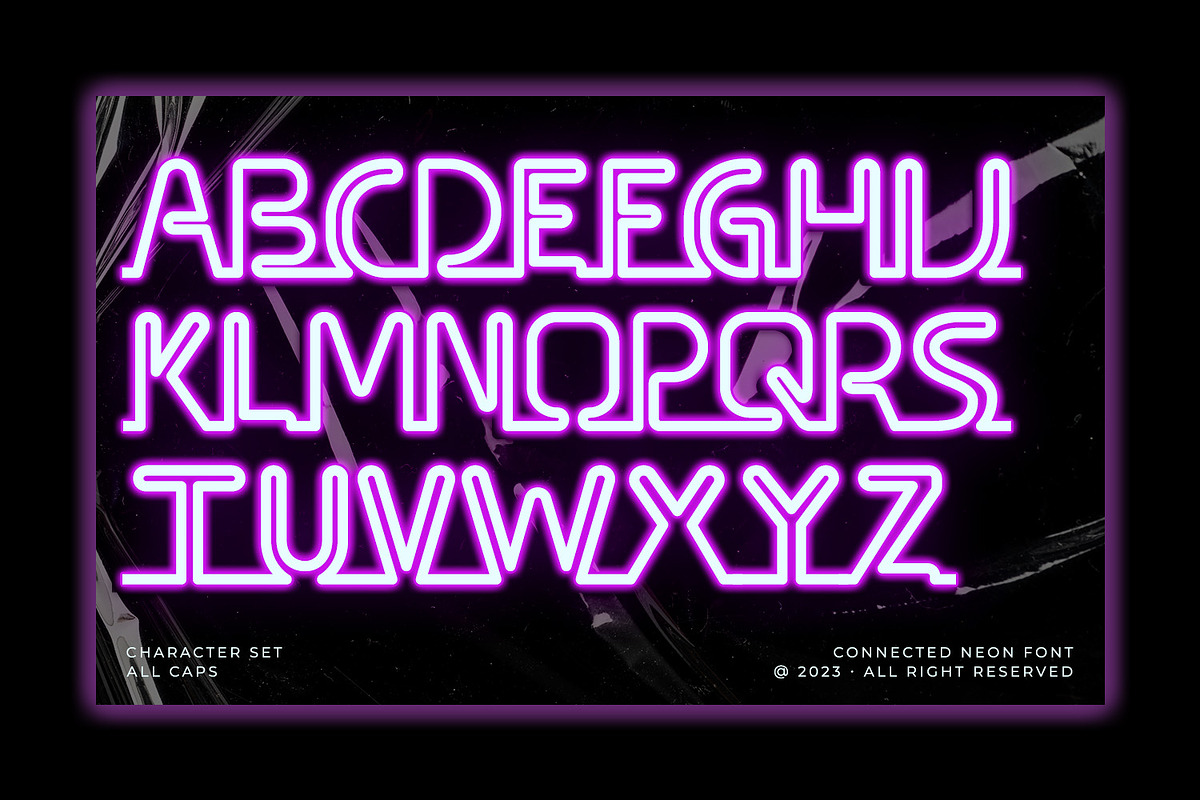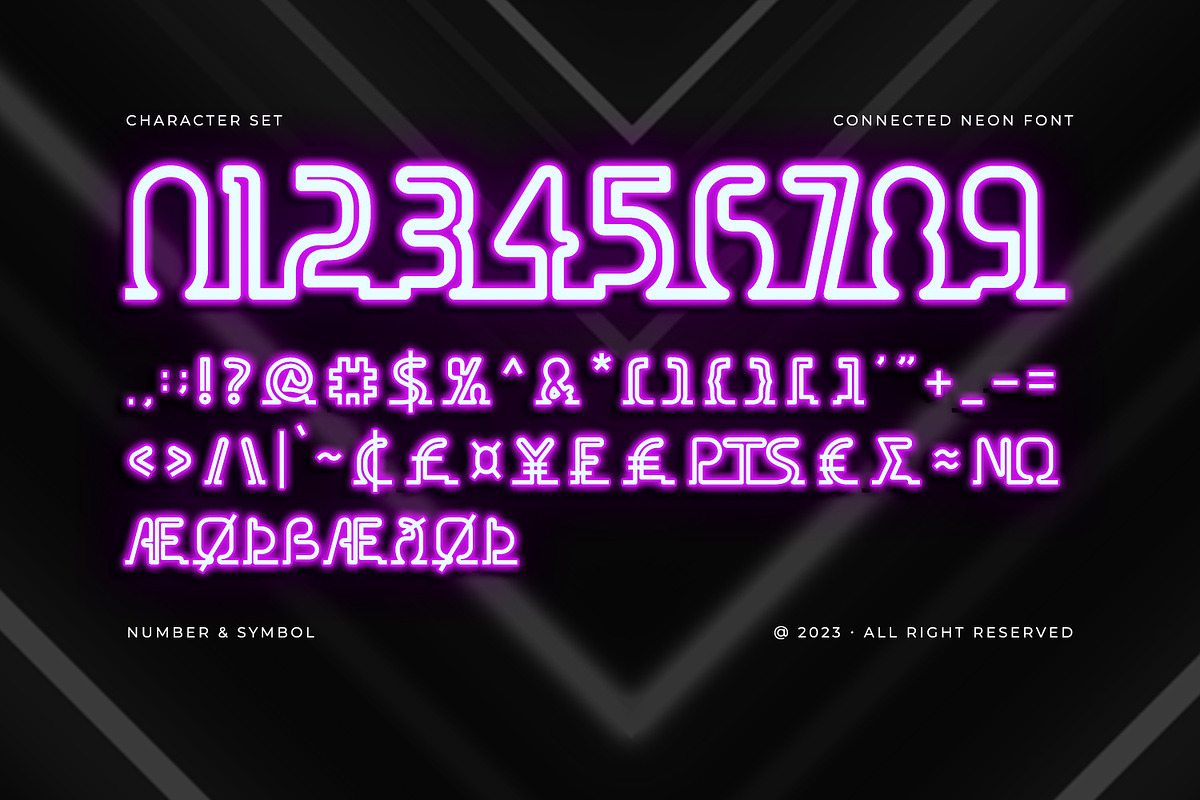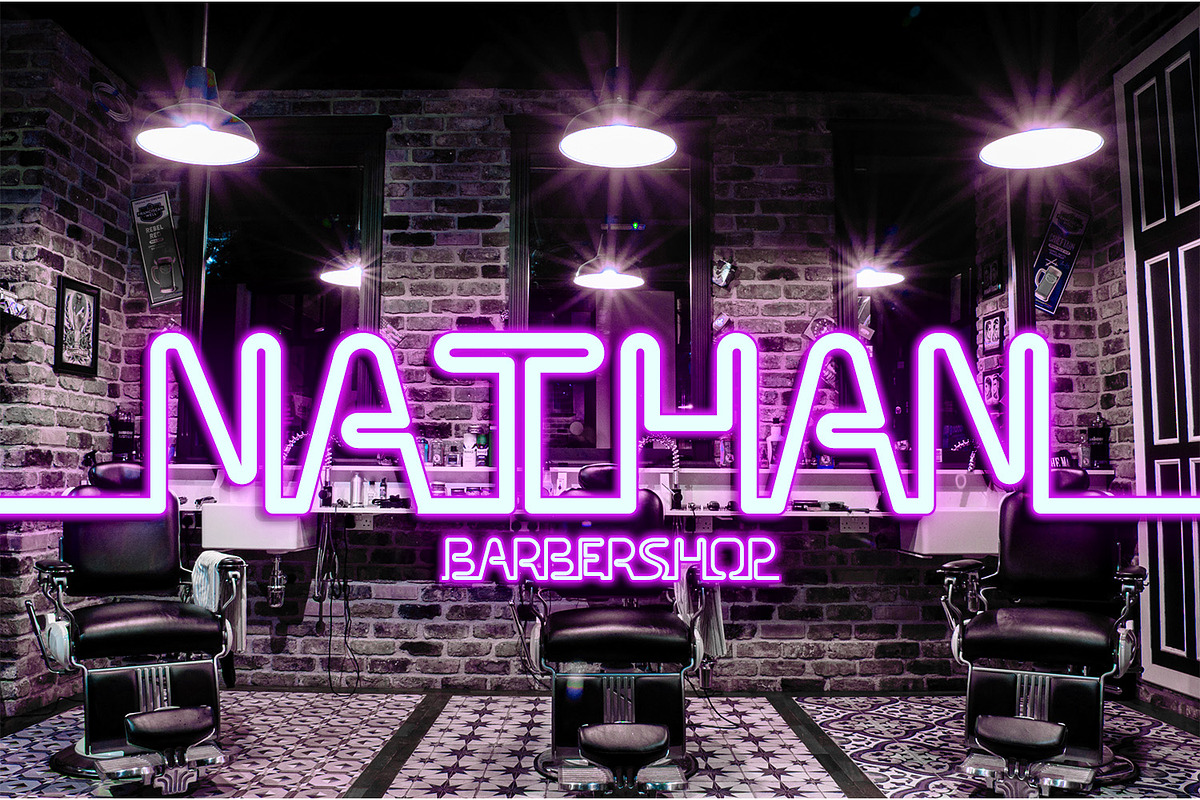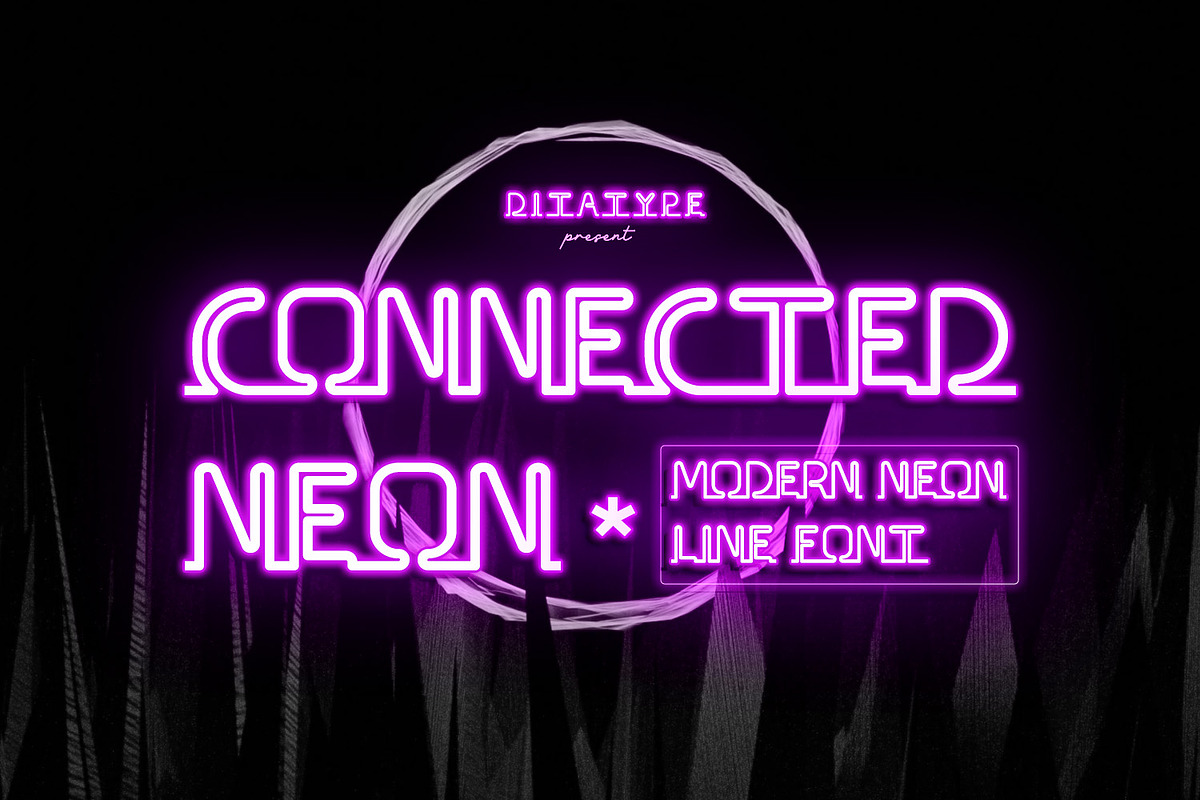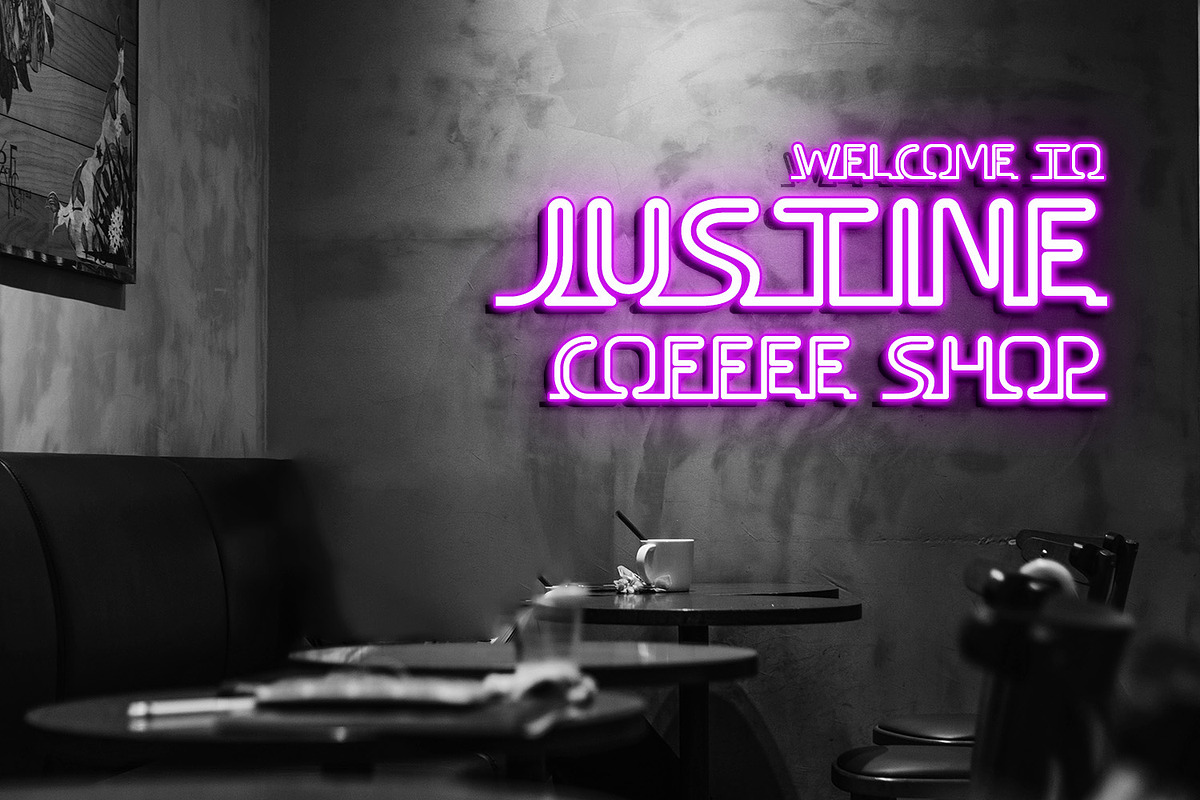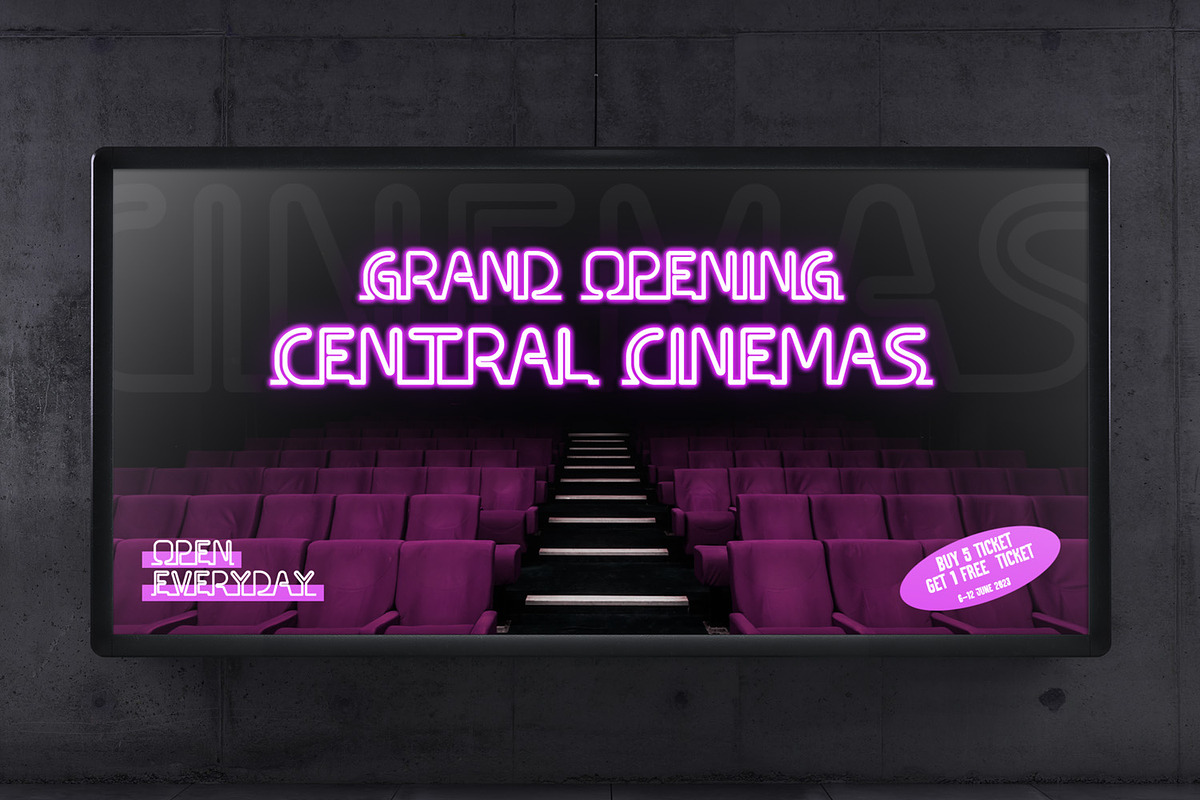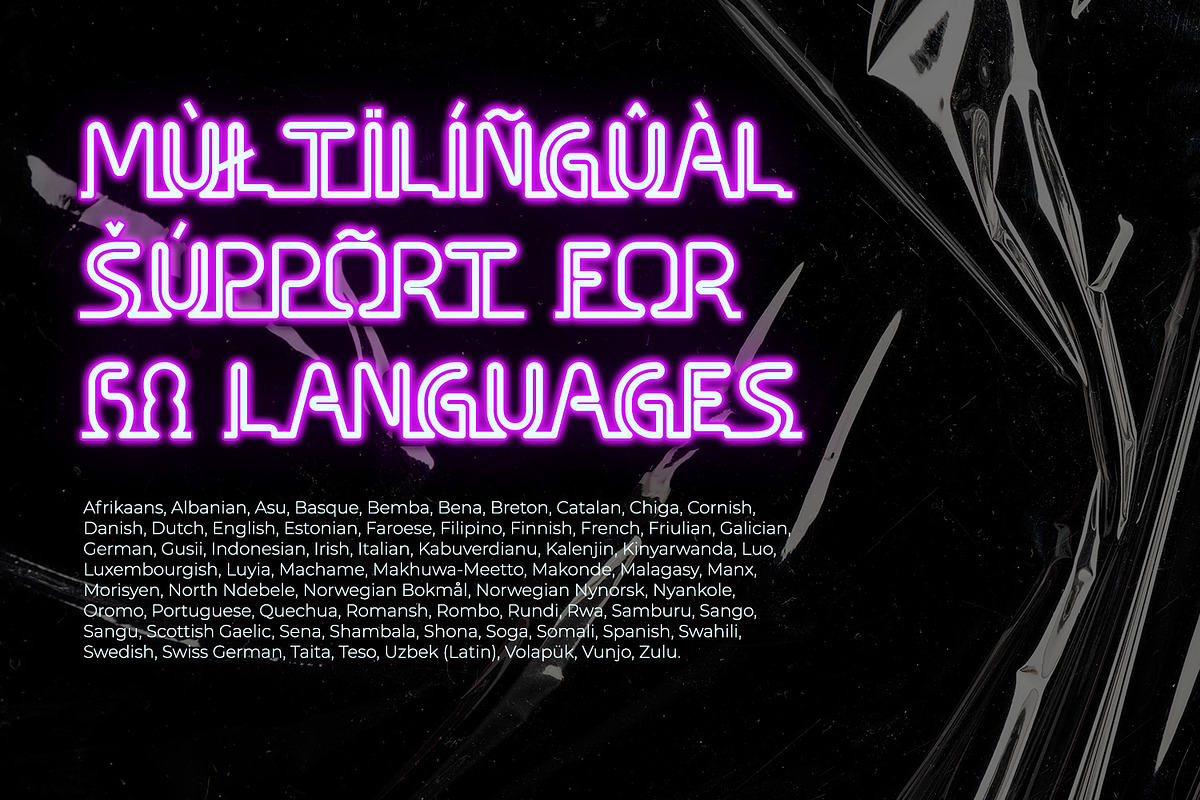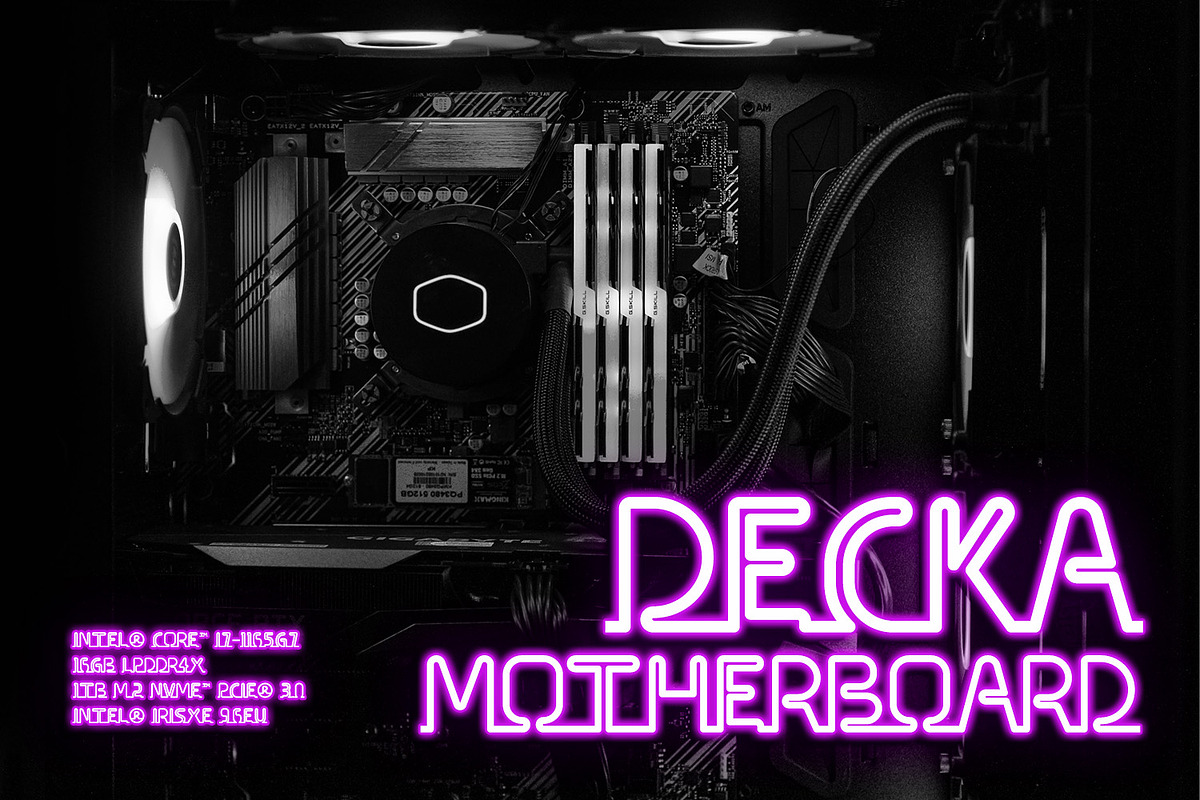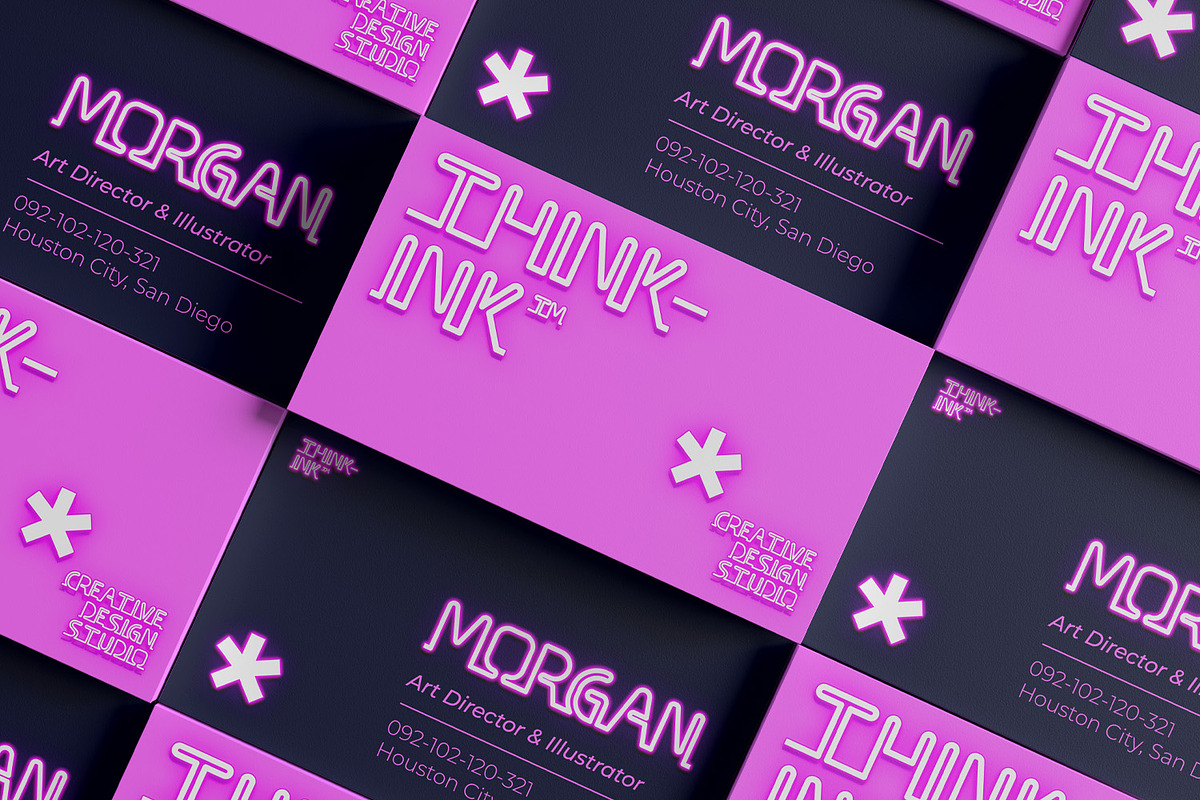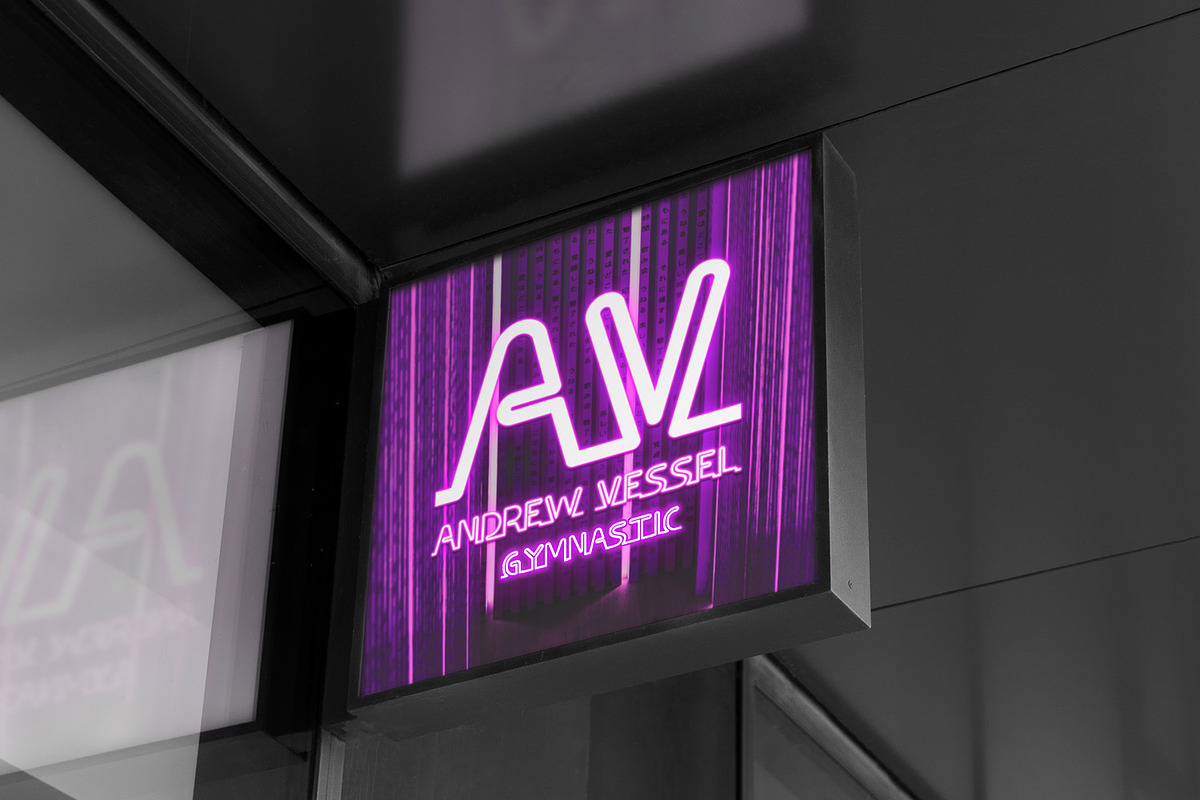
Connected Neon
Connected Neon is a mesmerizing display font that encapsulates the vibrant glow of neon lights, fusing it with a unique twist of connected letterforms. With its bold and uppercases design, this typeface commands attention, drawing the viewer into a captivating visual experience. The defining feature of Connected Neon lies in its elegant lines that seamlessly connect each letter, creating a unified and harmonious composition. These delicate lines flow effortlessly from one character to the next, accentuating the connectivity between them. As a result, the letters appear to dance with an electric energy, forming an enchanting tapestry of illuminated artistry. The neon-inspired style of Connected Neon is a nod to the retro-futuristic aesthetics of the 80s, reminiscent of the vibrant signage that adorned the bustling city streets. The font's luminous glow radiates with an otherworldly aura, casting a vivid hue that is both nostalgic and contemporary, evoking a sense of vibrant energy and modernity. Each character in Connected Neon has been meticulously crafted to strike the perfect balance between legibility and decorative flair. The bold letterforms boast a sleek, sans-serif design, ensuring clarity even in the midst of the dynamic interplay of lines. The seamless connections between letters create a sense of continuity and fluidity, enhancing the visual appeal without compromising readability. Enjoy the various features available in this font.
Connected Neon is ideal for a range of creative projects that demand a touch of charismatic flair. From eye-catching headlines on posters and advertisements to striking branding elements, this font adds a touch of electrifying allure to any design. Whether you're designing a captivating logo, crafting an attention-grabbing title, or bringing a digital artwork to life, Connected Neon will effortlessly infuse your creations with a radiant glow and a sense of interconnectedness. Find out more ways to use this font by taking a look at the font preview.